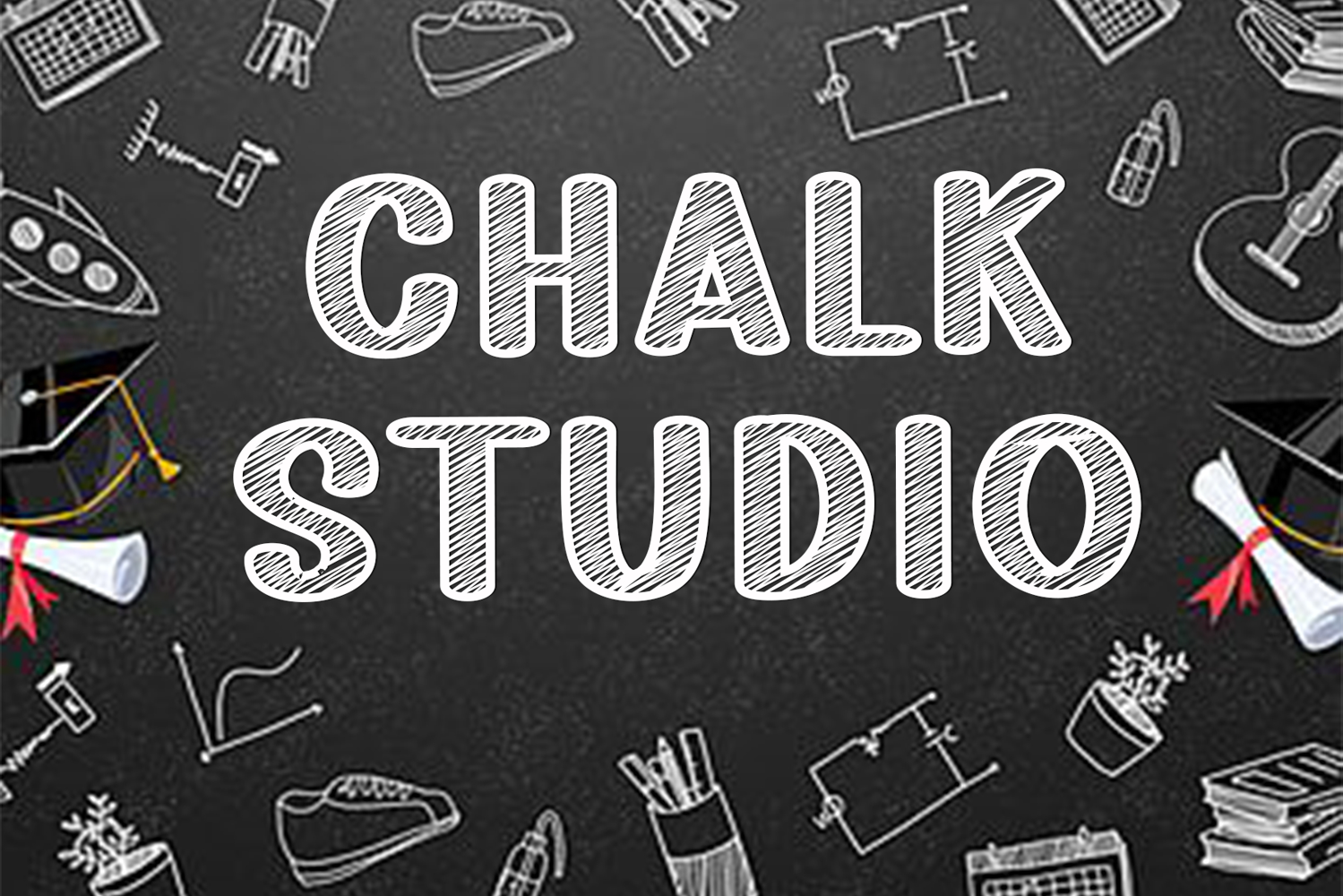
Chalk Studio
Chalk Studio is a beautiful and eye-catching font designed with a soft, unique touch. Its distinctive strokes give it a special character, making it meaningful and versatile for future use. With various characters, it’s perfect for design projects, crafts, and other creative works.